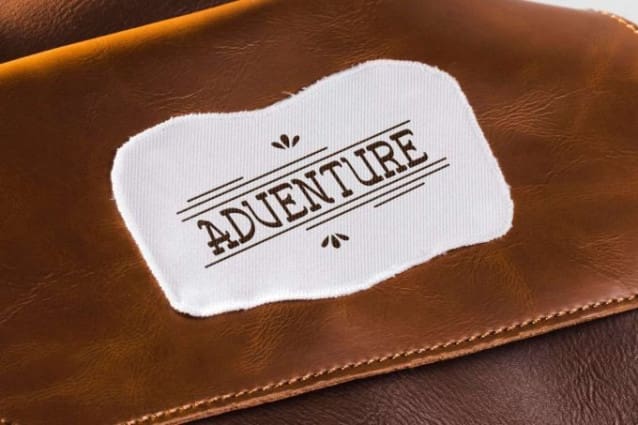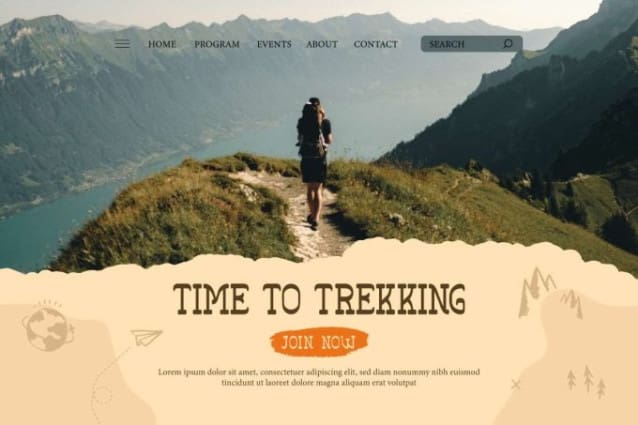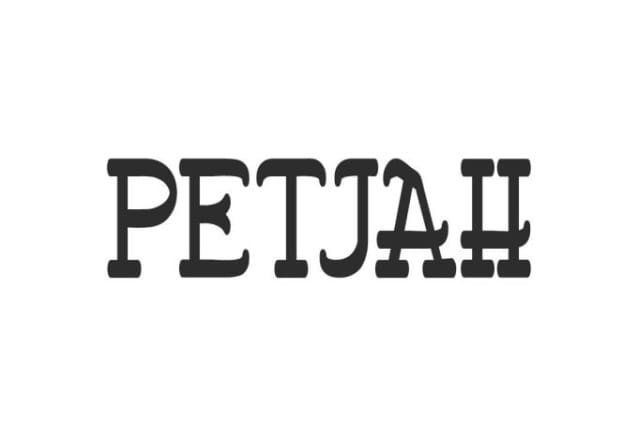
Petjah Display Font
Petjah Display Font, is a classic serif display font with retro style. It will be able to make your looks so cool, such as apps, billboard, brand logo, brochure, business card, catalog, cover, embossed design, flyer, header, invitation, label, magazine catalog, mockup design, poster, product design, quote, screen print, signage, social media posts, stationery, sticker, title, website, and any projects.
Petjah Font Font includes full set of ALL CAPS for Uppercase and Lowercase Basic Characters, Number, Punctuation, and Symbol. Its unique shape is able to give a retro impression to your business, such as accessories, architect, author, barber, carving, clothing brand, event organizer, fashion designer, furniture, handicraft, hotel, leather craftsman, lodging, movie, perfume brand, photography, real estate, restaurant, and many more.